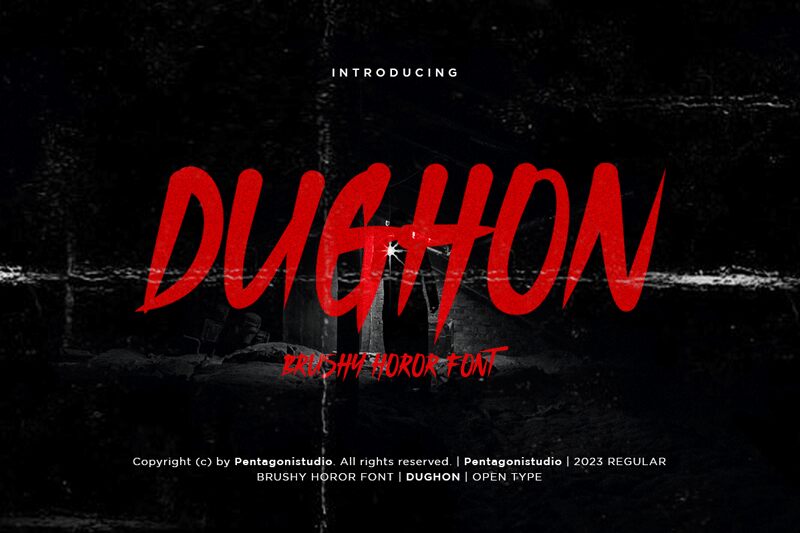
DUGHON - DEMO Regular
Dughon font by Pentagonistudio is a scary display font with a condensed shape and unusual style. The letters create an expressive, energetic, and modern aesthetic with their brush-like texture and casual vibe. The fragmentation of the lines along the characters resembles worn-out strips of fabric, giving the whole design a unique and unsettling mood.